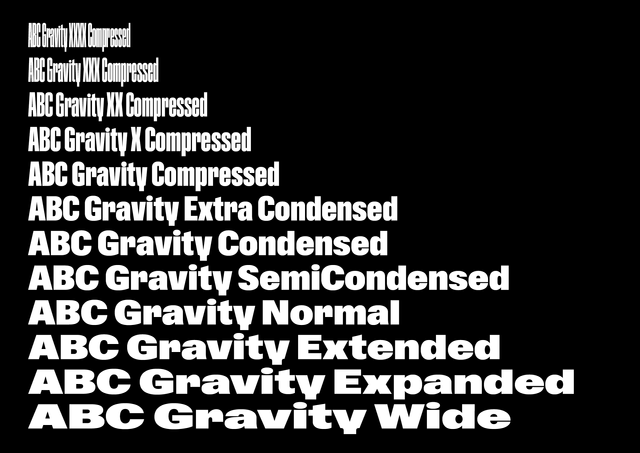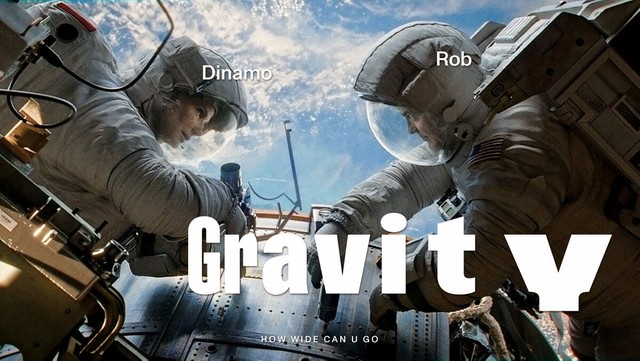
New Release: ABC Gravity ✨
How wide can you go? Next to jump off the cliff and into our Early Access section is ABC Gravity, designed by Dinamo’s own Rob Janes. We’ve long been working on this typeface and it’s developed into a—quite relaxed—multi-width variable-monster, one that shares a community garden with the likes of Compacta, Information, and, dare we say, Impact.
Gravity’s initial skeleton was inspired by heavy grotesk typefaces from the ‘60s and ‘70s, which we worked to compress and stretch out into extreme widths. Drawing only in Black weight helped us to focus on width-specific requirements, but more weights will come. As a special addition to the font, we also implemented features that allow you to arrange and shift the characters: You can make them jump over the baseline or hang from the top.
All of Gravity is packaged as one Variable Font file. That means the output can be modulated seamlessly from XXXX Compressed to Wide. As a fall back, we’ve also defined 12 separate font styles that can be used separately.
Variable Font
WIP design proofing workflow
Where my Gs at 🥴
Positioning features
Several styles mixed
XXXX the most adult style 🔞
Pictures by Koto
Not everybody in the love-sharing space called the internet loves Ginto as much as we do. Below are the best comments we’ve seen so far.
Fact
Reddit 💙
New Release: ABC Marfa
After one year in Early Access, ABC Marfa has now made it over the finish line and is officially available in our Retail Library!
While stylistically born in the hot metal typesetting period, Marfa was designed in a high-speed era of no time to lose: Its uprights were drawn in under 1,000 hours and its hot-headed Italics in less than half of that. Initially, Marfa was a sturdy, utilitarian typeface of three modest weights known as Gothic No. 6, drawn by Fabian Harb in homage to early American gothic typefaces. It made its first appearances in projects by early adopters like Other Means, Dan Solbach, Folder Studio, Eloise Harris & Nea-Kosma, and NODE. 🙏